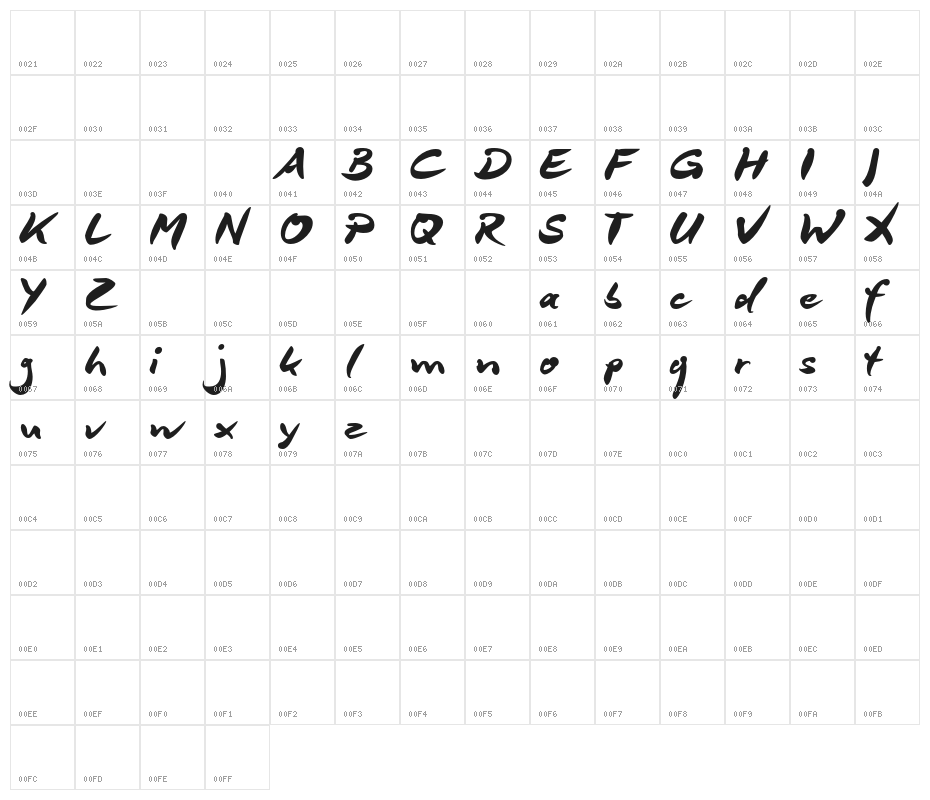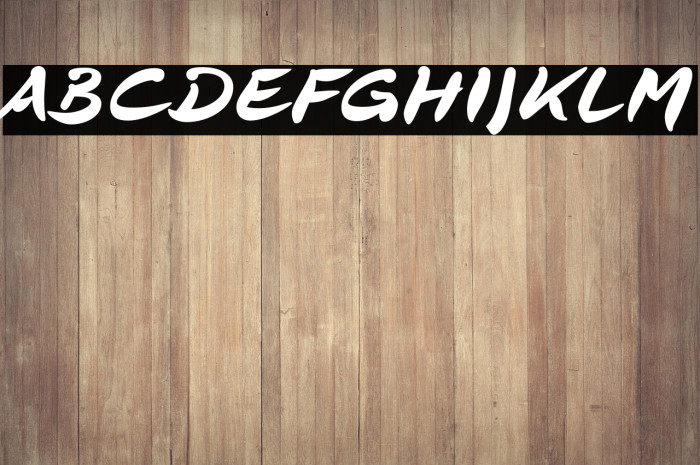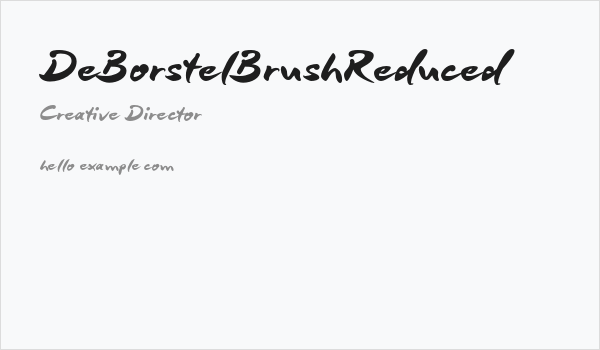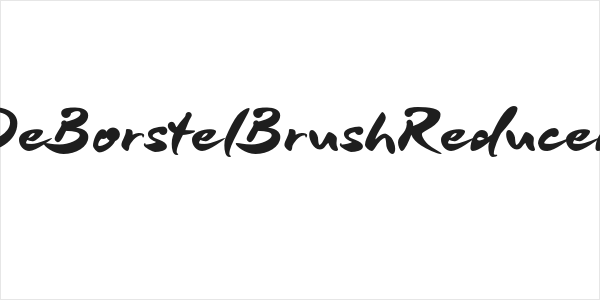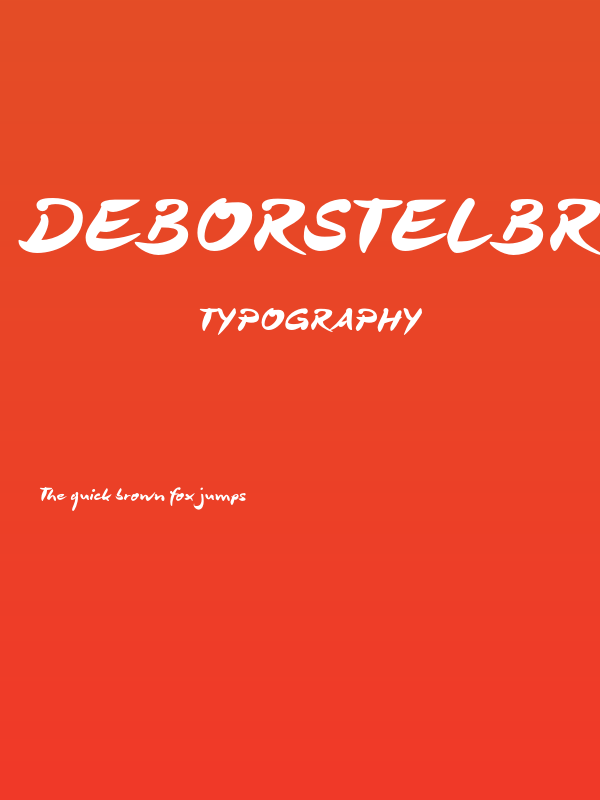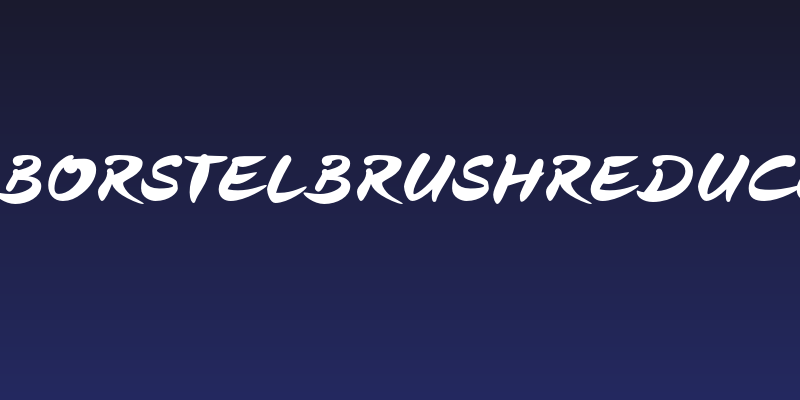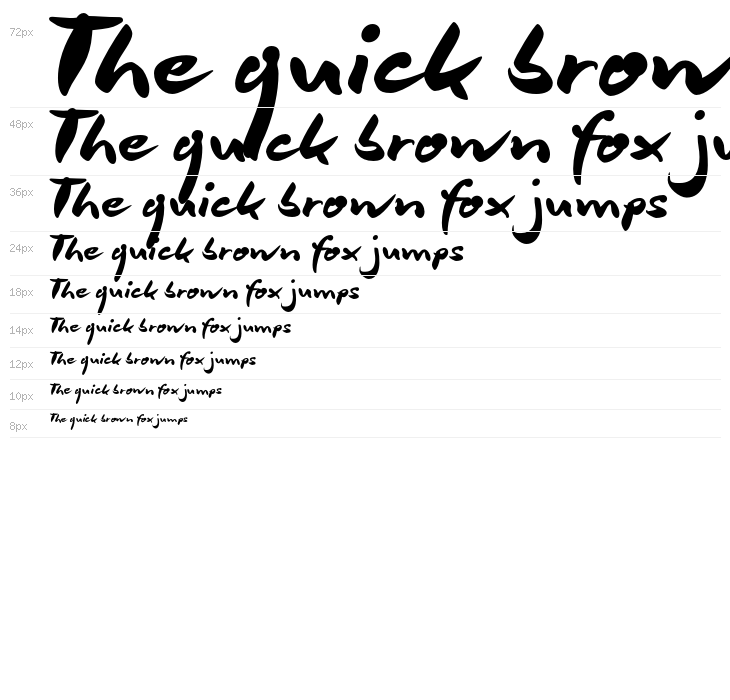
DeBorstelBrushReduced Font
DeBorstelBrushReduced Description
This font exudes a dynamic and expressive style, characterized by its bold, brush-like strokes that give it a handwritten appearance. The letters are fluid and slightly slanted, adding a sense of movement and energy. The uppercase and lowercase letters maintain a consistent style, with rounded edges and varying stroke widths that enhance its artistic flair. The font's organic feel is complemented by its irregularities, which add to its charm and authenticity. It's perfect for projects that require a personal touch or a creative, informal vibe.
| Use Case | Logos, Headlines, Artistic designs |
| Proposed Projects | Ideal for creative projects such as posters, invitations, branding, and artistic designs that require a personal and expressive touch. |